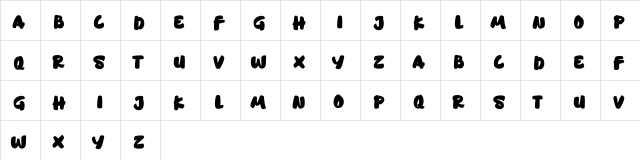
Heycold DEMO Regular
| Foundry | Juni Fadil Putra |
| Designer | Juni Fadil Putra |
Design Context for Heycold DEMO Typeface
Heycold DEMO is a composed and adaptable typeface that performs quietly and consistently across a wide range of design contexts.